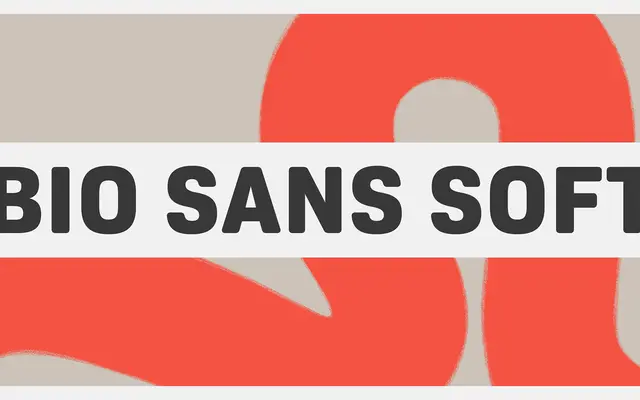
Bio Sans Soft
Dharma Type · Ryoichi Tsunekawa
A geometrically constructed sans with softened rounded details, designed by Ryoichi Tsunekawa for readable, all-purpose text and UI work.
Built on a geometric skeleton with subtle rounded terminals, it offers a friendly, neutral appearance suited to body text, UI and editorial contexts. Six weights run from ExtraLight to ExtraBold, each with matching italics, and the large x-height holds up well at small sizes on screen. OpenType features cover fractions, ordinals, superior and inferior figures, and case-sensitive forms, with broad coverage of Latin-based European languages including Afrikaans.
Geometrically constructed skeleton with softened, rounded terminals and a large x-height; positioned as a neutral, legible all-purpose sans with humanist friendliness.